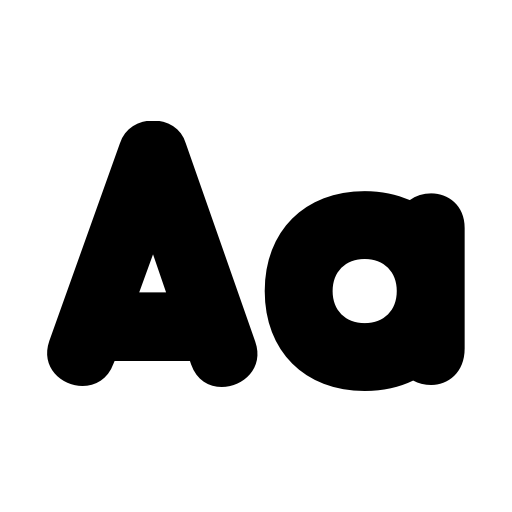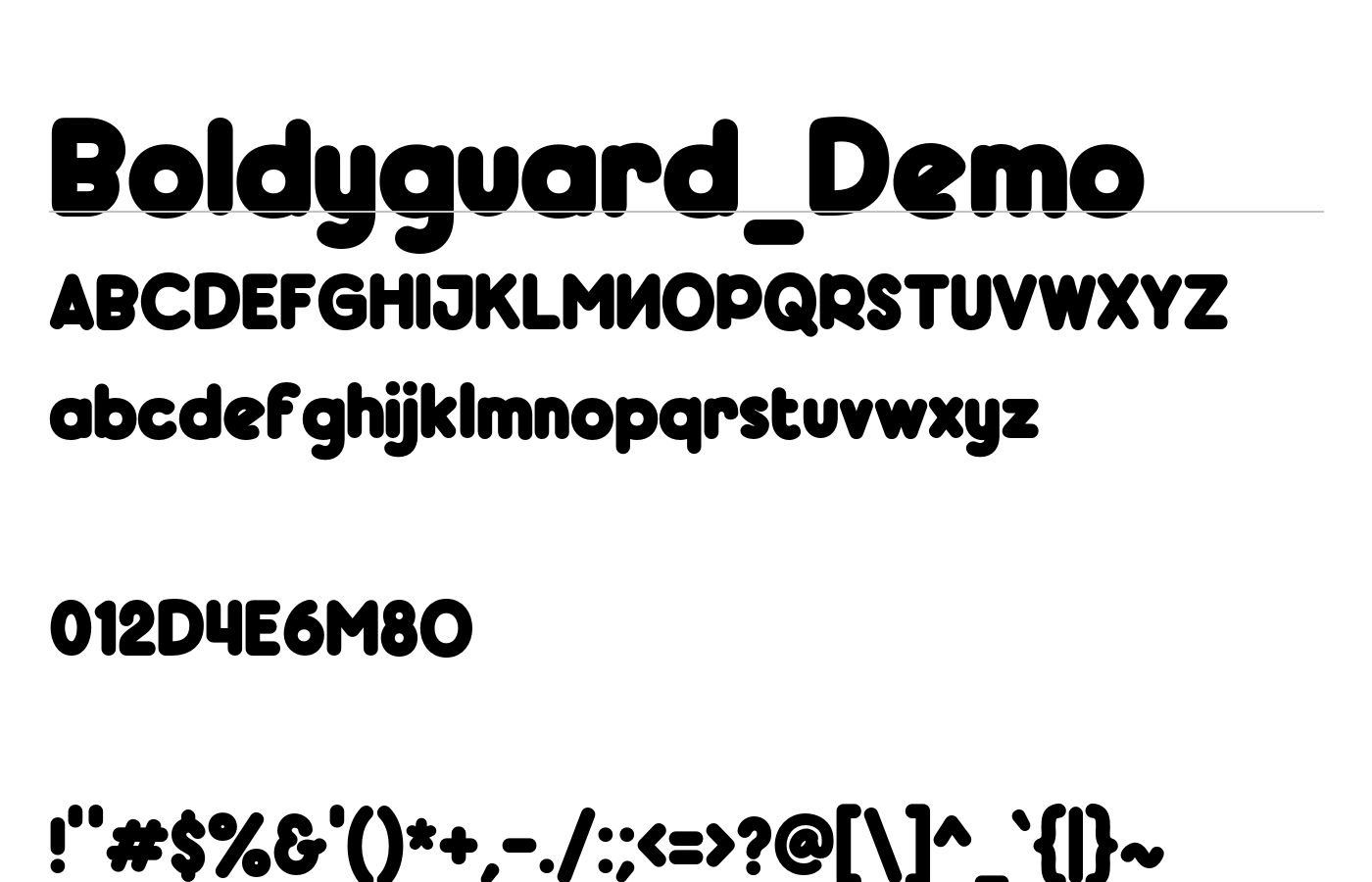
Boldyguard_Demo is a bold, rounded sans serif font characterized by its chunky, playful letterforms and high x-height, making it highly legible and friendly. Its smooth, uniform strokes and generous spacing give it a casual, approachable feel, ideal for branding, headlines, or any design seeking a fun, modern look. This font works well for children's products, posters, and informal digital content where clarity and a warm tone are desired.
Boldyguard_Demo Font
About Boldyguard_Demo Font